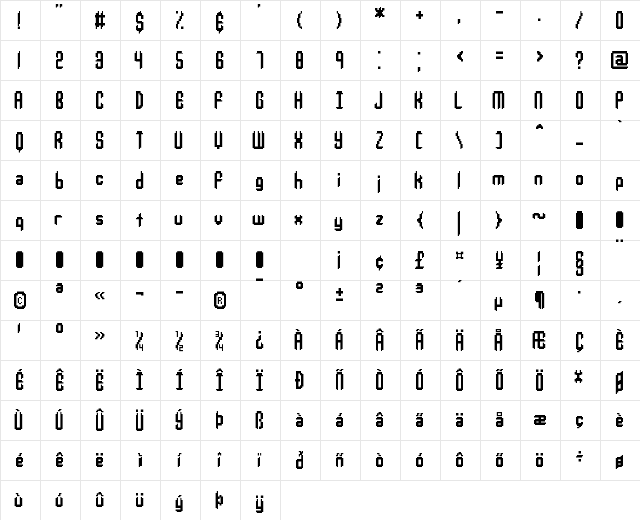
Jupiter Crash BRK Regular
| Foundry | ƎIGMA FONTS |
| Designer | ƎIGMA FONTS - Brian Kent |
Design Context for Jupiter Crash BRK Typeface
Jupiter Crash BRK takes a measured approach to typography — its balanced proportions and neutral character make it a reliable workhorse for both digital and print work.